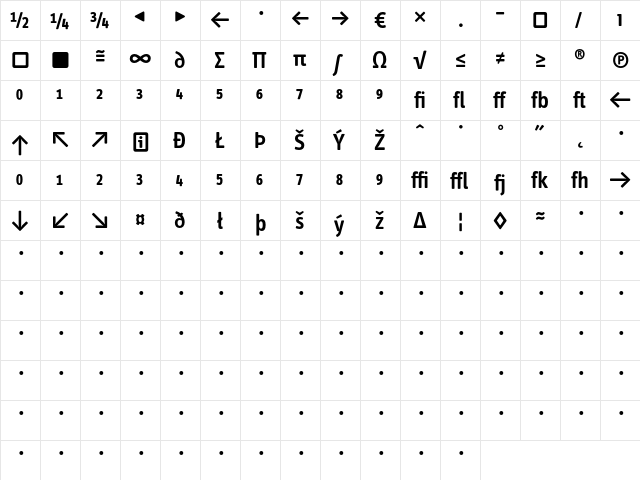
InfoDispSemibold RomanExp
Design Context for InfoDispSemibold Typeface
InfoDispSemibold offers clean, dependable letterforms without strong stylistic allegiance, making it a practical choice for designers who need flexibility. The heavy weight commands attention and anchors typographic hierarchies.